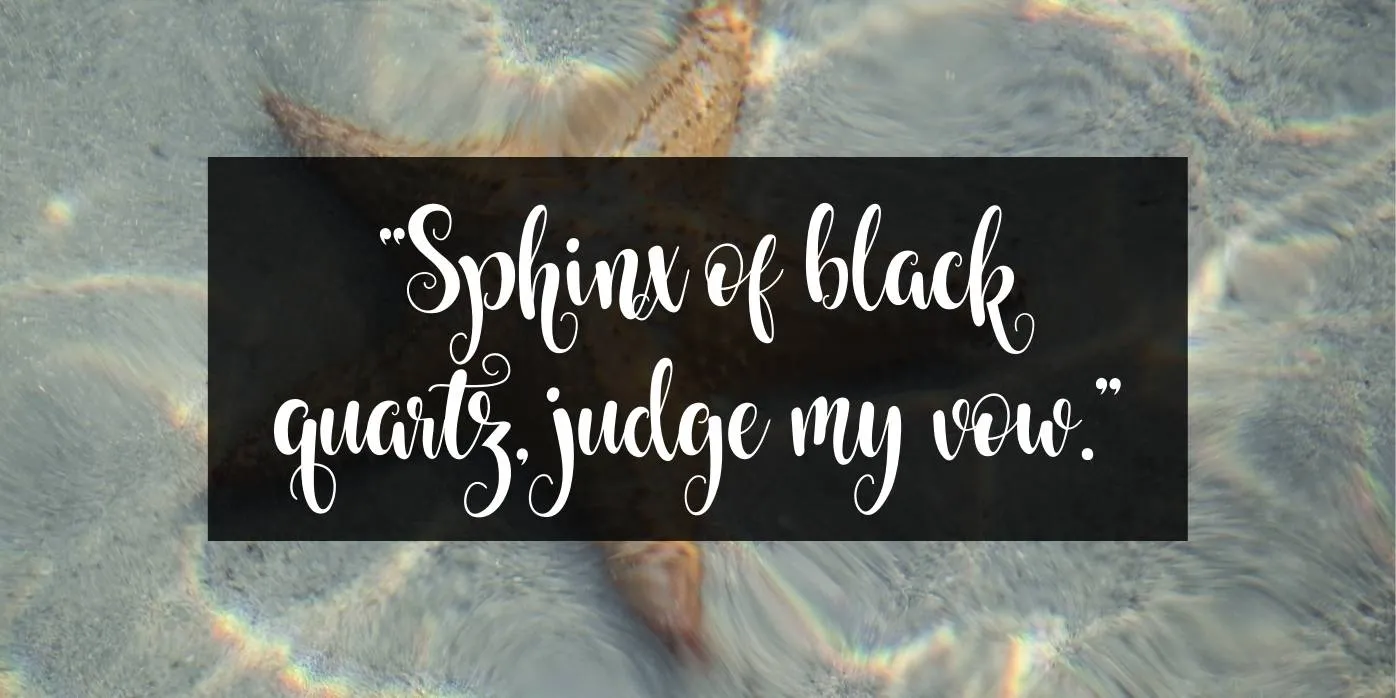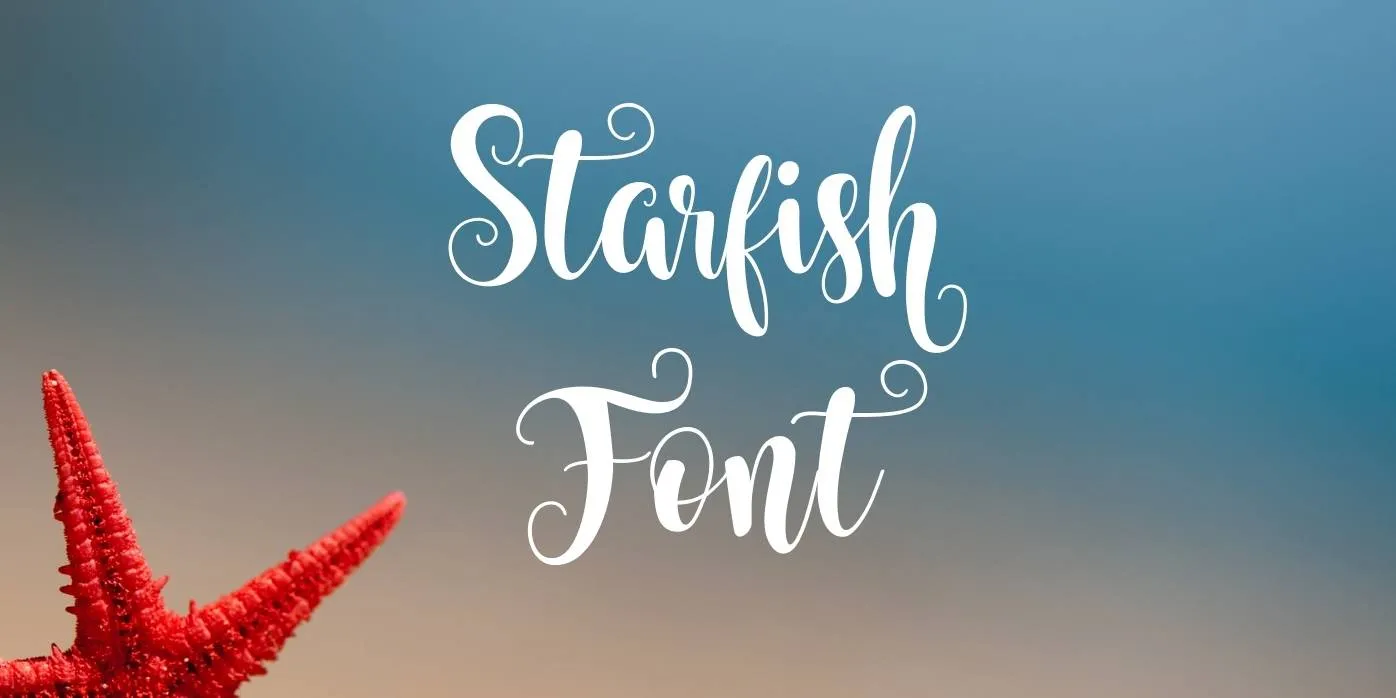
Starfish Font
Starfish Font is a script typeface. This cute typeface was designed by Francis John. It features a wide range of characters, with slightly rounded edges and subtle curves. This Font is perfect for use in logos and branding, as well as marketing materials or web design.
In the year 2016, it was released to the general public. This Font is a versatile typeface that can be used in a wide variety of contexts and projects. Its clean, modern style makes it ideal for branding and marketing materials, while its versatility allows it to also be used in web design or on signage. Its similar marguerite font is suitable for a huge variety of designs.